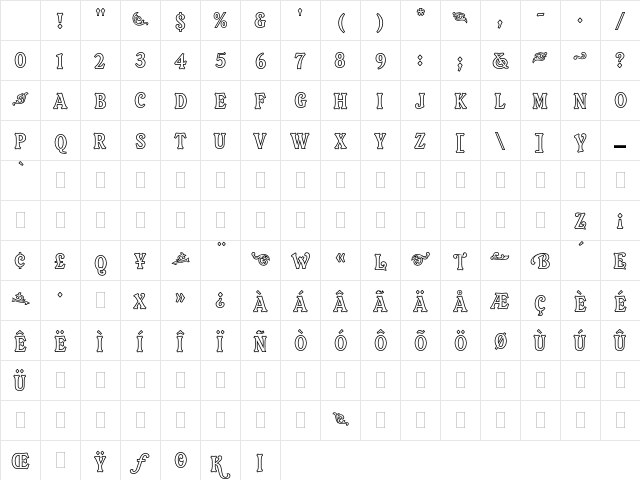
Complete Orlando Plain glyph index. Displaying only characters natively supported by Orlando Plain font.
Orlando is a composed and adaptable typeface that performs quietly and consistently across a wide range of design contexts.